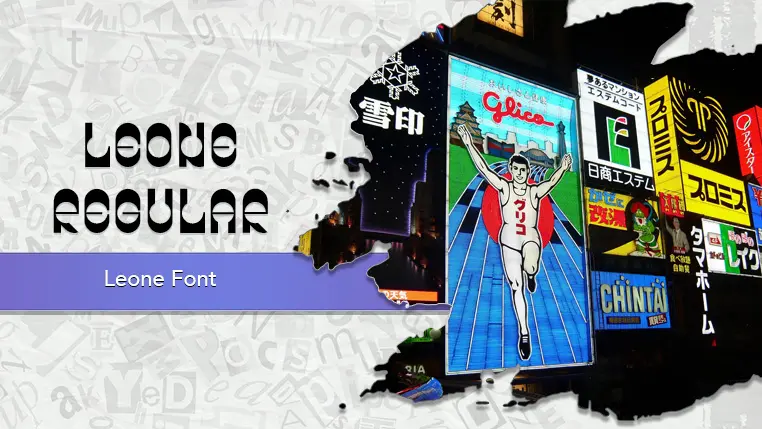
The Leone font family may be ideal for you if you enjoy working on an artistic design project. The lively, expressive look of this typeface, which was created by Pietro Filippeschi, makes it ideal for Headlines and Titles, Logos and Branding, Effective for creating eye-catching visuals for social media posts, stories, and advertisements. and other light-hearted visual projects.
Regular are the one primary font styles of the Leone font family. You may build dynamic, visually appealing text layouts with the distinct flair that each style offers. With crisp, readable lines and a relaxed tone.